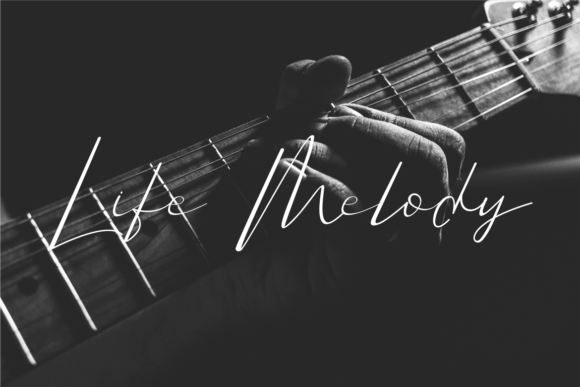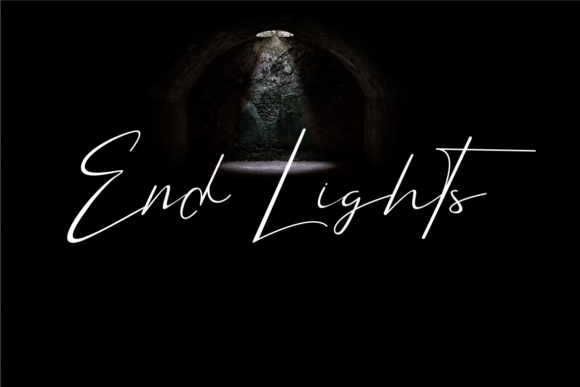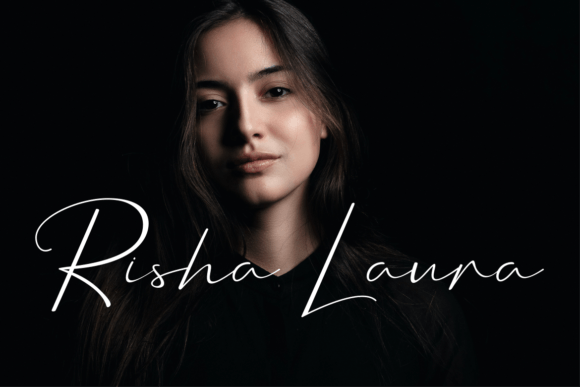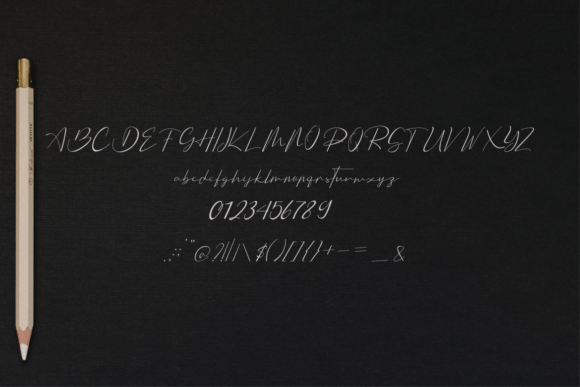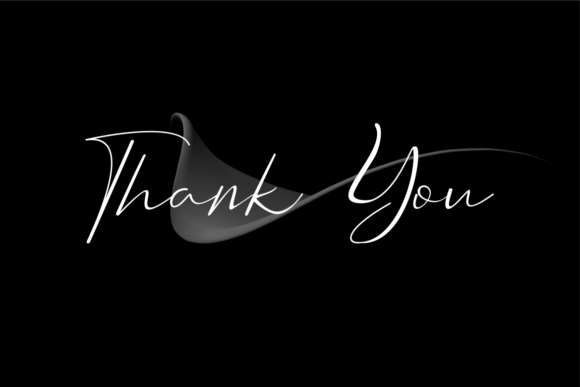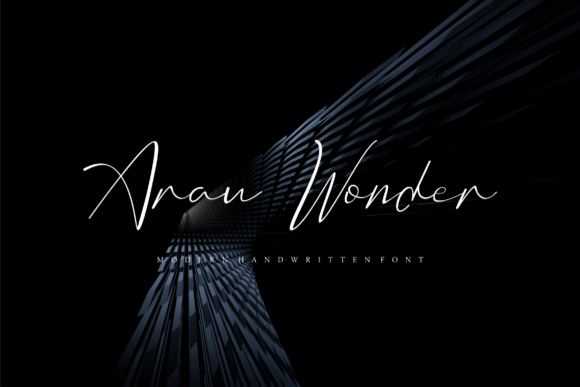
The Magic of Arau Wonder Font: Elevate Your Designs with Elegance
I’ll never forget the time I was working on a DIY project for a client’s wedding invitation. I had the perfect design concept, but I was struggling to find a font that would bring it all together. That’s when I stumbled upon Arau Wonder Font, and it was love at first sight! 💕 This delicate and stylish handwritten script font has since become a staple in my design toolkit, and I’m excited to share its magic with you.
An Honest Review of Arau Wonder Font
- ✨ Elegant and refined strokes that add a touch of sophistication to any design
- 💫 Beautifully crafted to evoke a sense of wonder and whimsy
- 🎨 Versatile and adaptable to various design styles and themes
While Arau Wonder Font is an exceptional font, there are a few things to keep in mind:
- 🤔 Limited availability of certain special characters or glyphs
The Story Behind Arau Wonder Font
Arau Wonder Font was crafted with love and care by a talented type designer who aimed to create a font that would inspire creativity and bring a touch of magic to designs. The font’s name, Arau Wonder, reflects the sense of awe and curiosity that comes with discovering something truly special.
| What makes Arau Wonder Font so special? | Arau Wonder Font is a unique blend of elegance and playfulness, making it perfect for a wide range of design projects. |
| Is Arau Wonder Font suitable for body text? | While Arau Wonder Font is beautiful, it’s best suited for headings and titles. For body text, consider a more traditional font for optimal readability. |